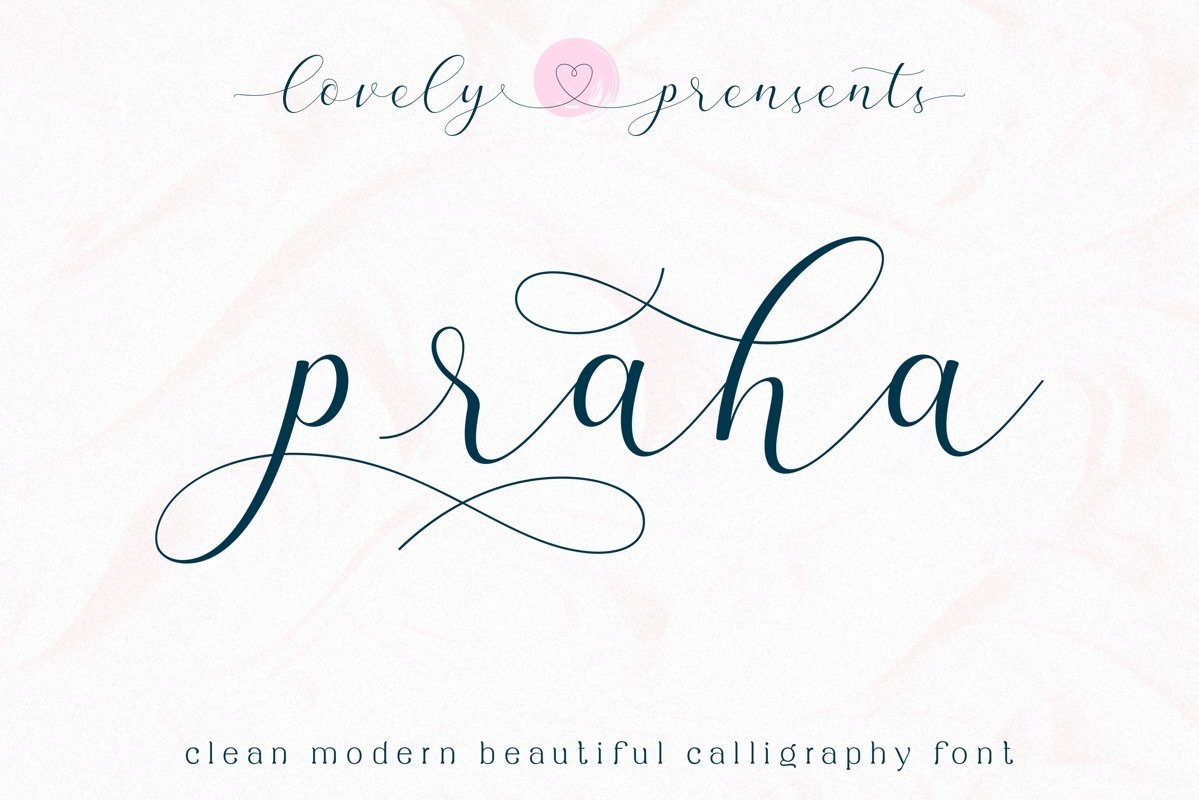
Praha - lovely clean modern calligraphy font
Praha
praha font has made for multiple uses. such as designs, invitations, photography, quote and many more!
praha font comes with full set of lovely uppercase and lowercase letters and also a bunch of alternates such as heart icon, baby icon. beginning heart swosh, ending heart swosh, and many more ending and begining swosh ( just check in preview )
The font has clean texture, so would be perfect for all types of printing techniques+you can do embroidery, laser cut, gold foil etc.